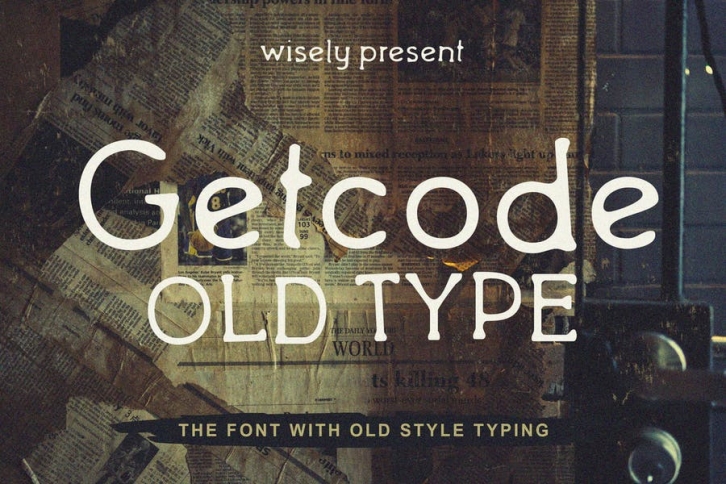
Getcode Old Type is inspired by old type machine.  It can easily be matched to an incredibly large set of projects, so add it to your creative ideas and notice how it makes them stand out!